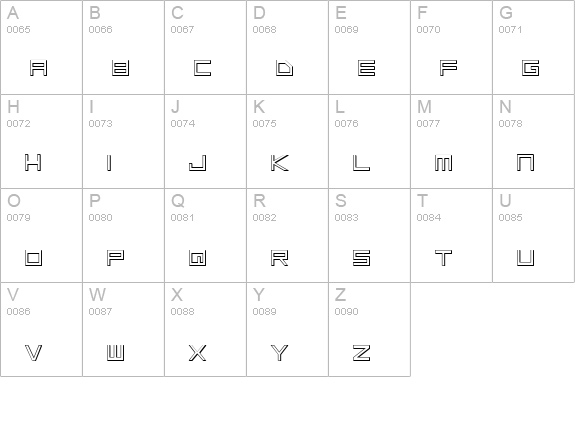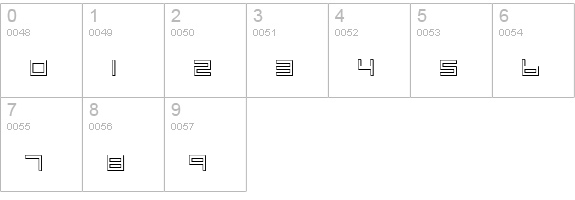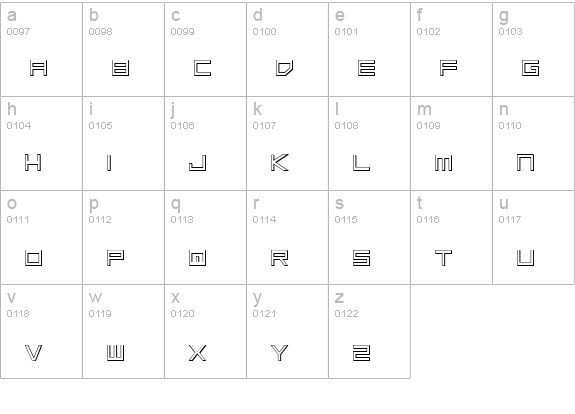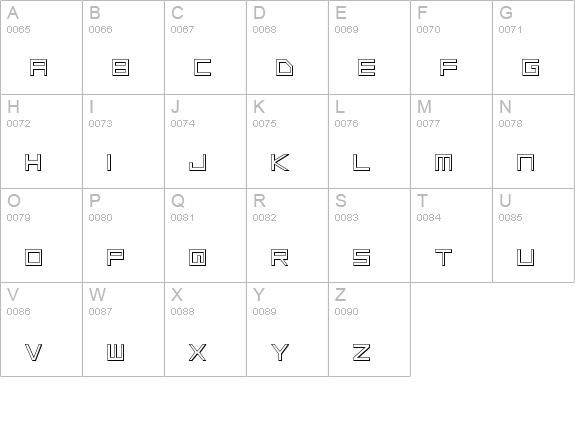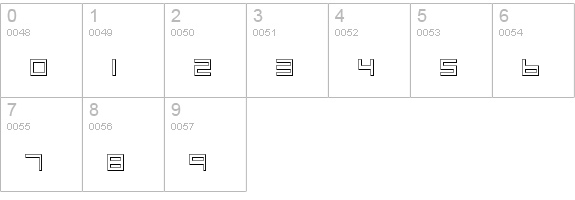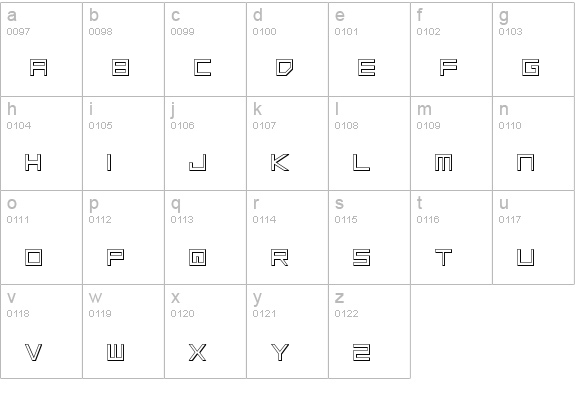
Low Gun Screen Outline font is a sleek and modern typeface that exudes a sense of edgy sophistication. Its bold outlines and sharp angles give it a futuristic and dynamic look, making it perfect for designs that require a strong visual impact. This font is versatile and can be used for a variety of projects such as branding, posters, packaging, and more. What's even better is that Low Gun Screen Outline font is available for free download at FontsMarket.com. This means you can easily access this stylish font and use it in your projects without any cost. Don't miss out on this opportunity to elevate your designs with the striking Low Gun Screen Outline font.